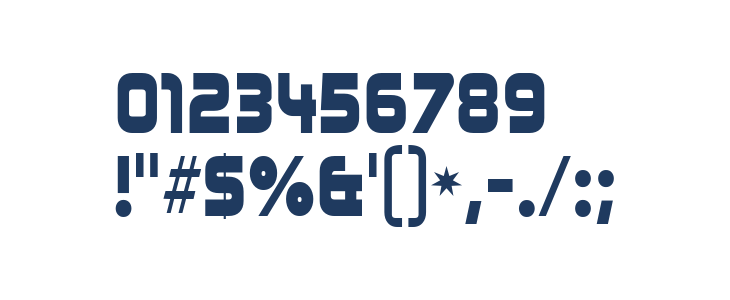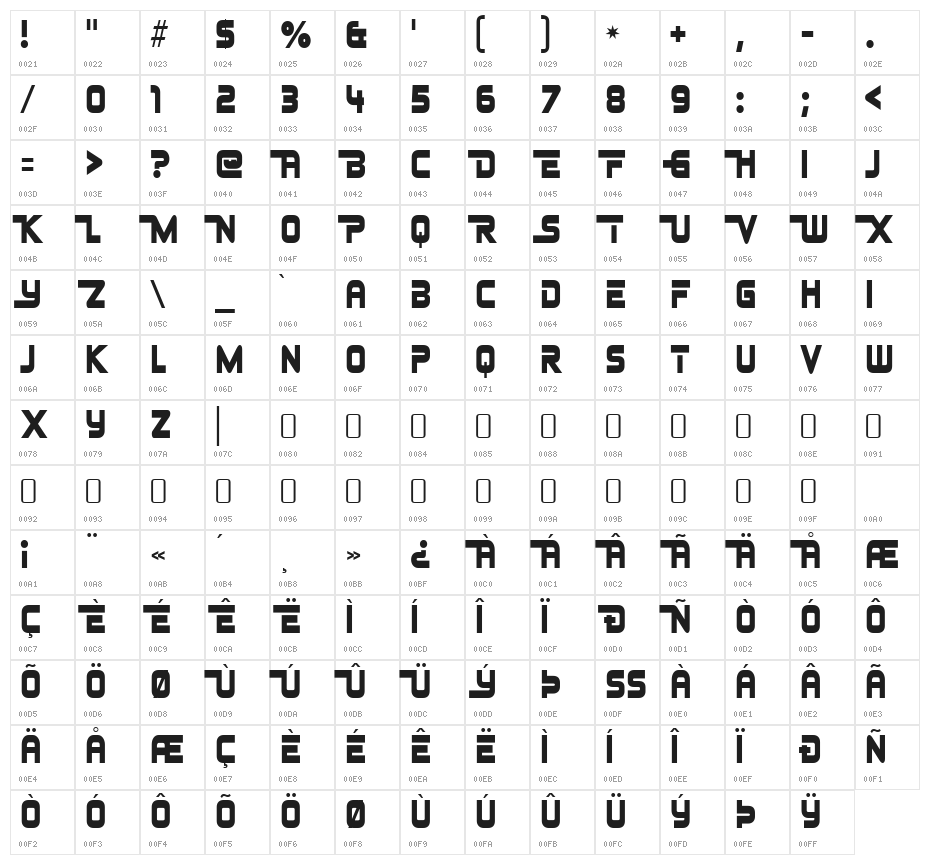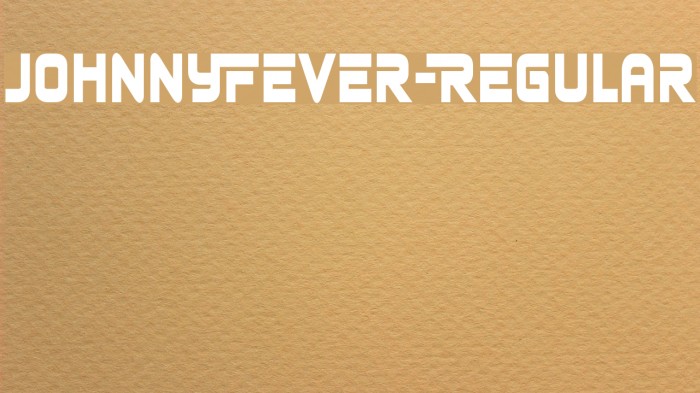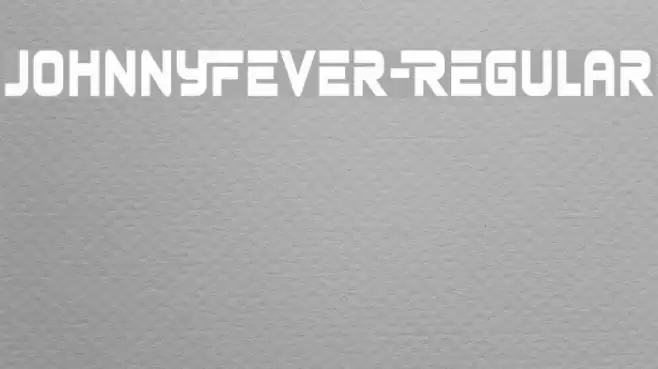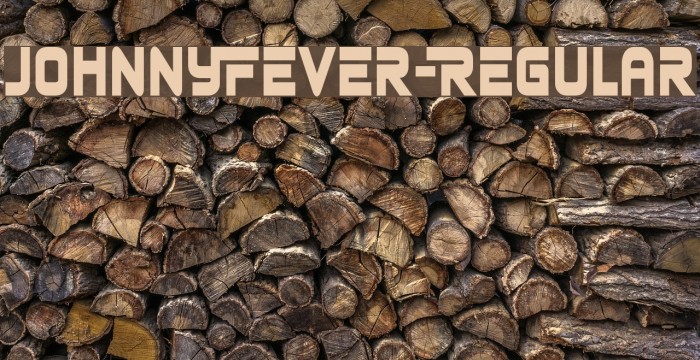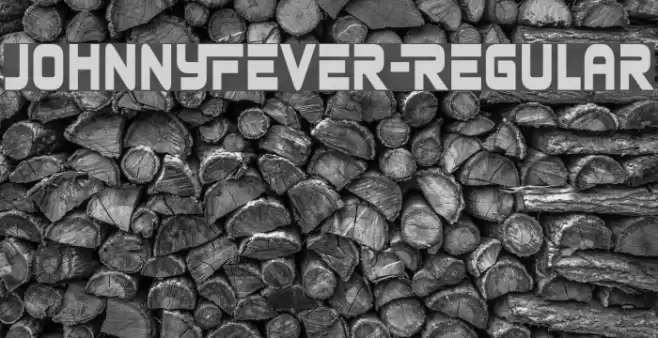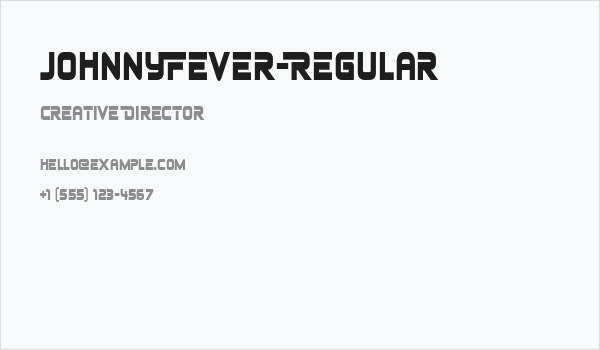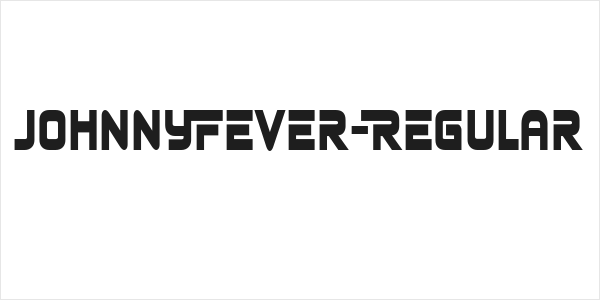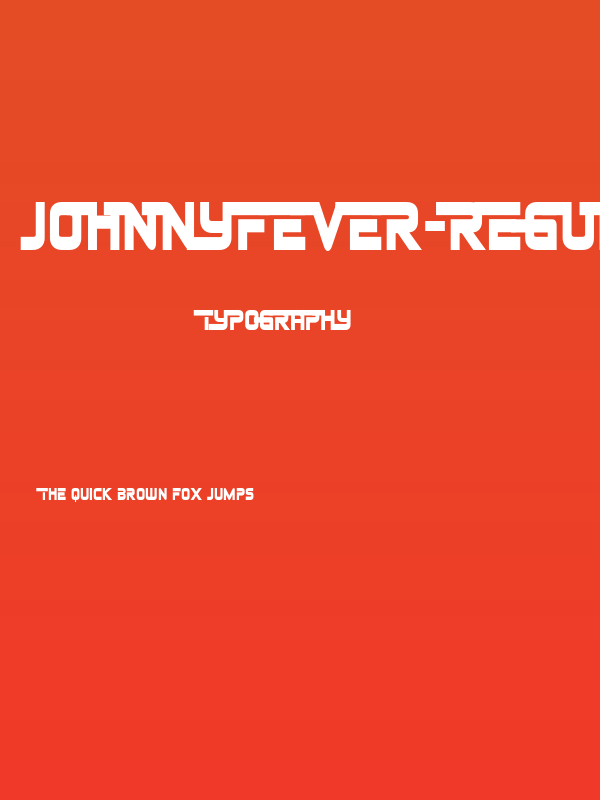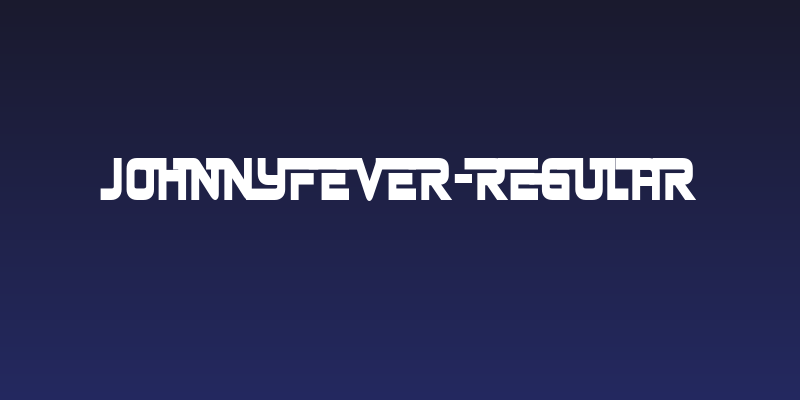
JohnnyFever-Regular Font
JohnnyFever-Regular Description
This font exhibits a bold and futuristic style with geometric elements. The characters are blocky and robust, featuring sharp angles and a consistent stroke width that conveys a sense of strength and modernity. The uppercase letters are particularly striking, with unique cutouts and angular forms that add a distinctive flair. The numerals and special characters maintain this bold aesthetic, ensuring uniformity across all glyphs. Its design is both functional and decorative, making it suitable for a variety of applications where a strong visual impact is desired.
| Proposed Projects | Ideal for technology branding, video game titles, sci-fi movie posters, and modern advertising campaigns. |